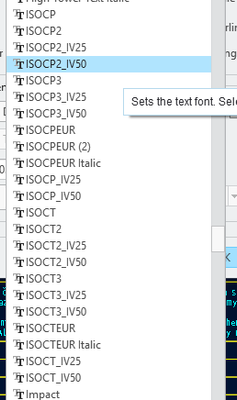
We are using "Isofont.ndx" in our drawings. But we need to export them to PDF with Truetype font. I can chose the option to force it to use Truetype font but the default font is "Arial" and it is too wide.
Can anyone help how to change this default setting to another type of narrower font?
See the two screenshots below. First one is the screenshot from Creo directly and 2nd is the screenshot for the PDF was created using the " Using True Type Font" option. It can be seen the string gets a lot wider than it was in Creo. When the filename gets longer, it will encroach into the other cell of the table.
In Creo the default font is "Isofont.ndx", but in PDF it was converted to "Arial". That is why it is a lot wider. I believe it is the default setting in Creo.
I tried to find a solution to change the default True Type font used in Creo to "ArialLN". That is a narrower font, but I don't know where to start.
Several people I know worked on this and the resume was to give up. Vector fonts are not working properly in creo and you want to elimitate the thing that your drawing looks different on paper than on your monitor. In case I want some CNC laser text done I use them with these export settings or I just do 0,01mm extrude a text on a part. We switched to true type. The advise from official creo distributor in our country was to install ISOCP fonts, we are using ISOCPEUR as default now. It looks technical and similar size like ndx font and we export ttf to ttf.
Our situation is different. We are in a highly regulated industry. Documentation requirement is very strict. We often receive "repeat" projects. Physically they are the same, but drawings have to be changed due to some wording changing. It is very time consuming to change a few hundreds something thousands drawings one by one, We would like to export all drawings to PDF format and do a batch search and replace using a Python script. It works really well except this font issue.
Our creo default font is "isofont.ndx". If we simply export it to PDF, all characters are not editable. We had to force the export option to use True Type fonts. But the part number gets too wide and cause the issue.
I see and understand, very clever idea but sadly I dont think there is way to do it. Creo doesnt have this solved very well and building software with base font from 1995 will bite you in the ass somewhere. Hopefully somebody knows more...that would save my time too!
Only experimental way I know would be probably manually porting isofont.src file into .ttf which you can install on windows, that should work after export 1:1. Porting will take probably week but still better than rework all the drawings several times a year.
it seems to me that in addition to isofont, you also use filled font. Both of them are proprietary ProE/Creo fonts.
Note: When you export drawing to PDF then all proprietary ProE/Creo fonts are replaced by ARIAL font.